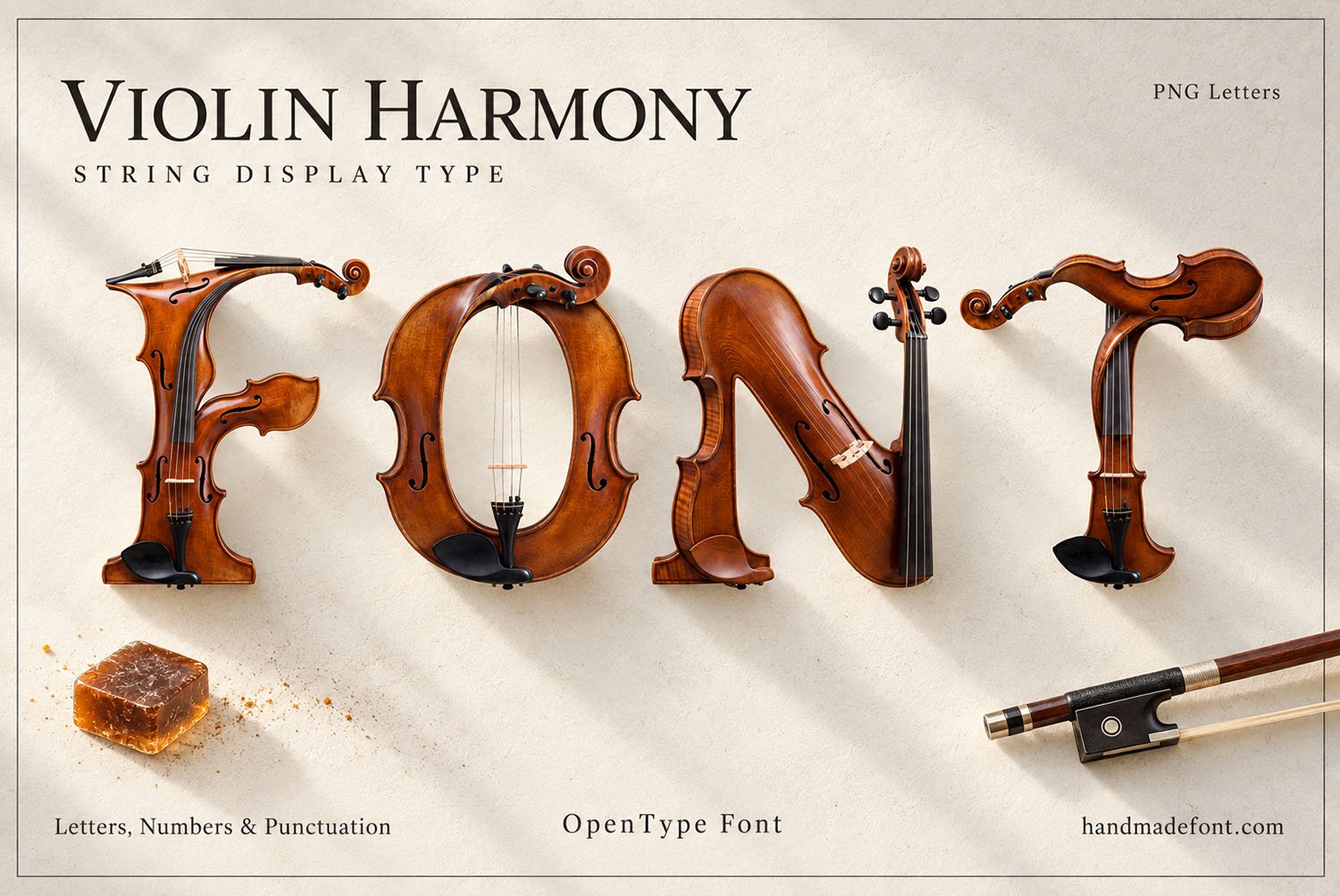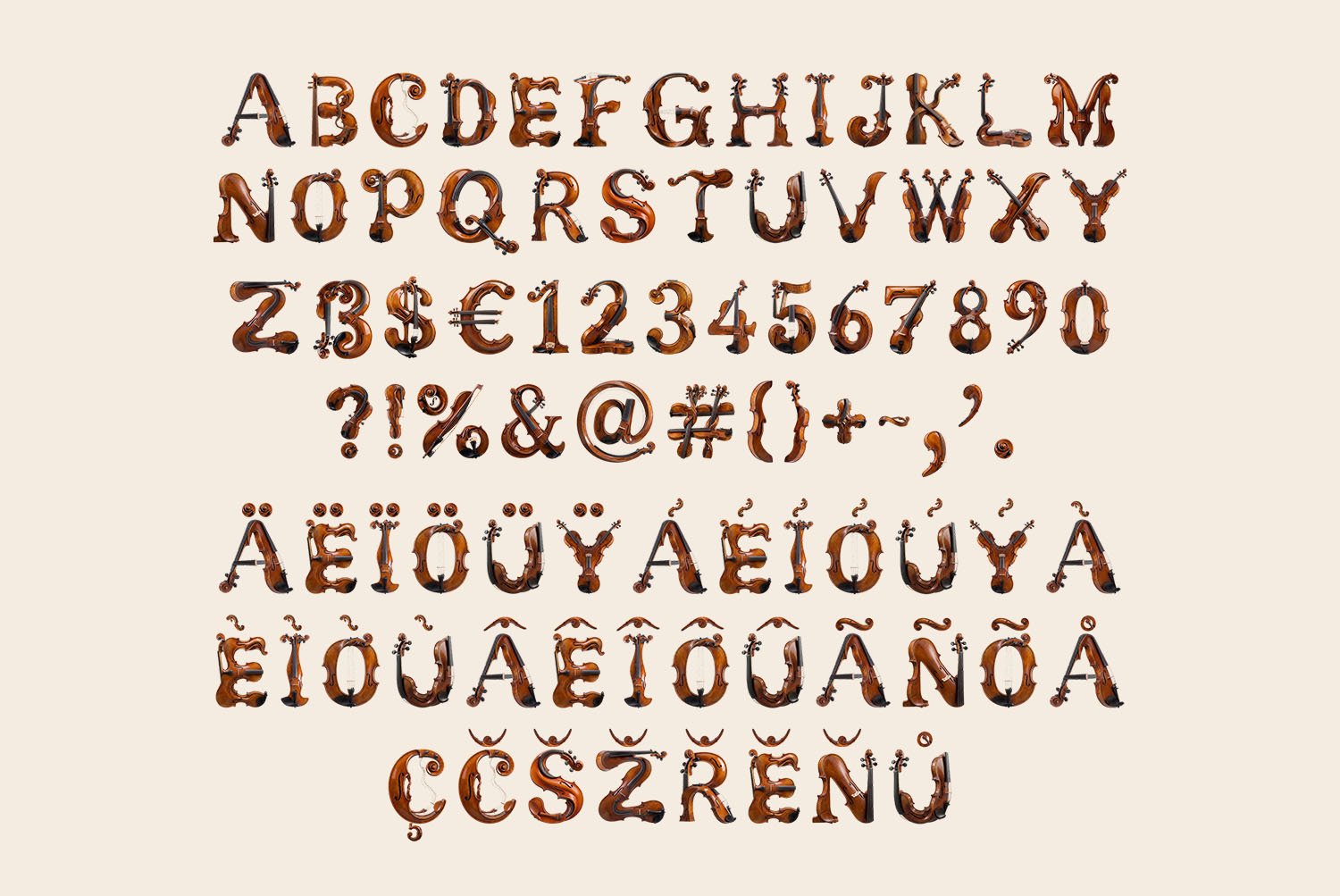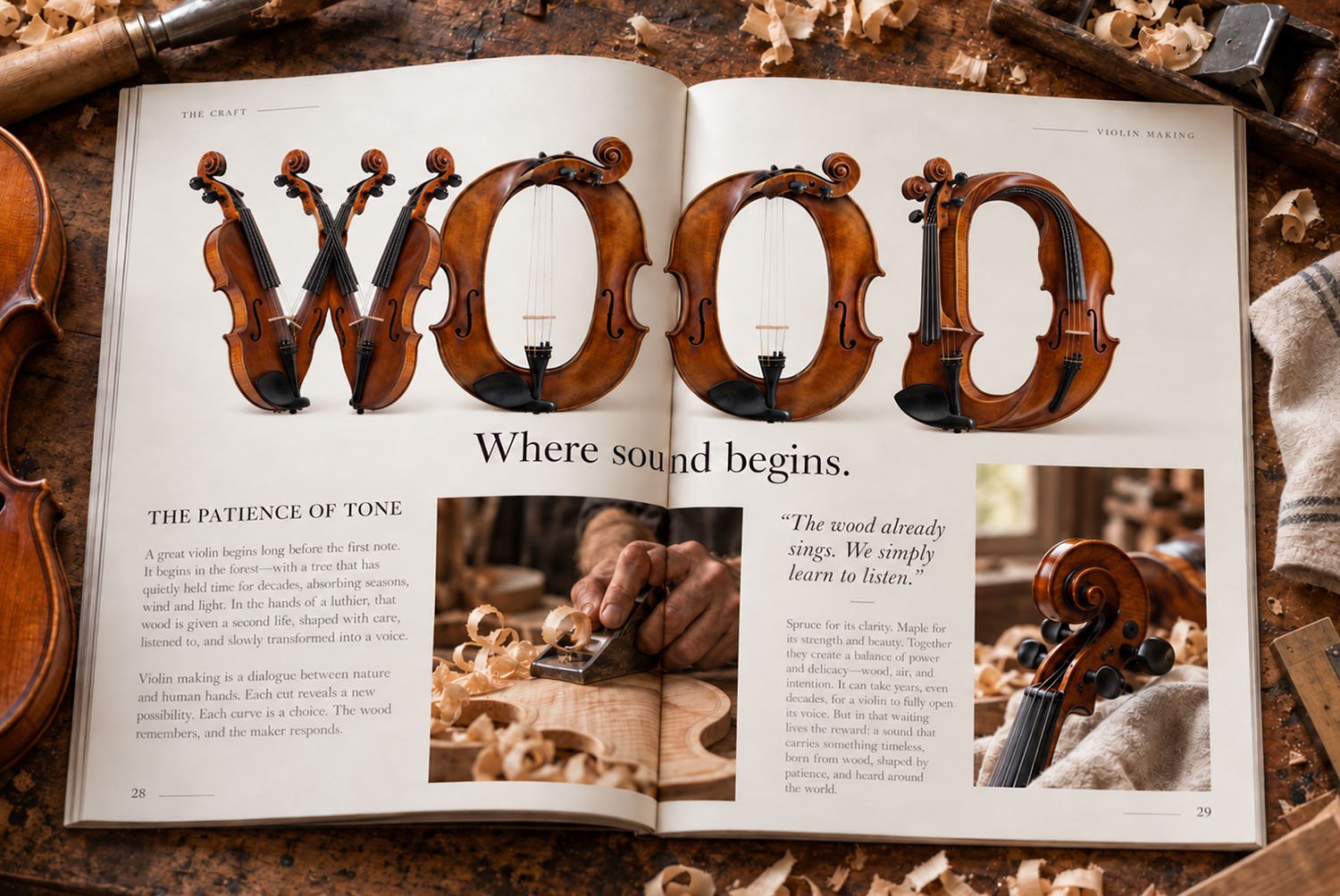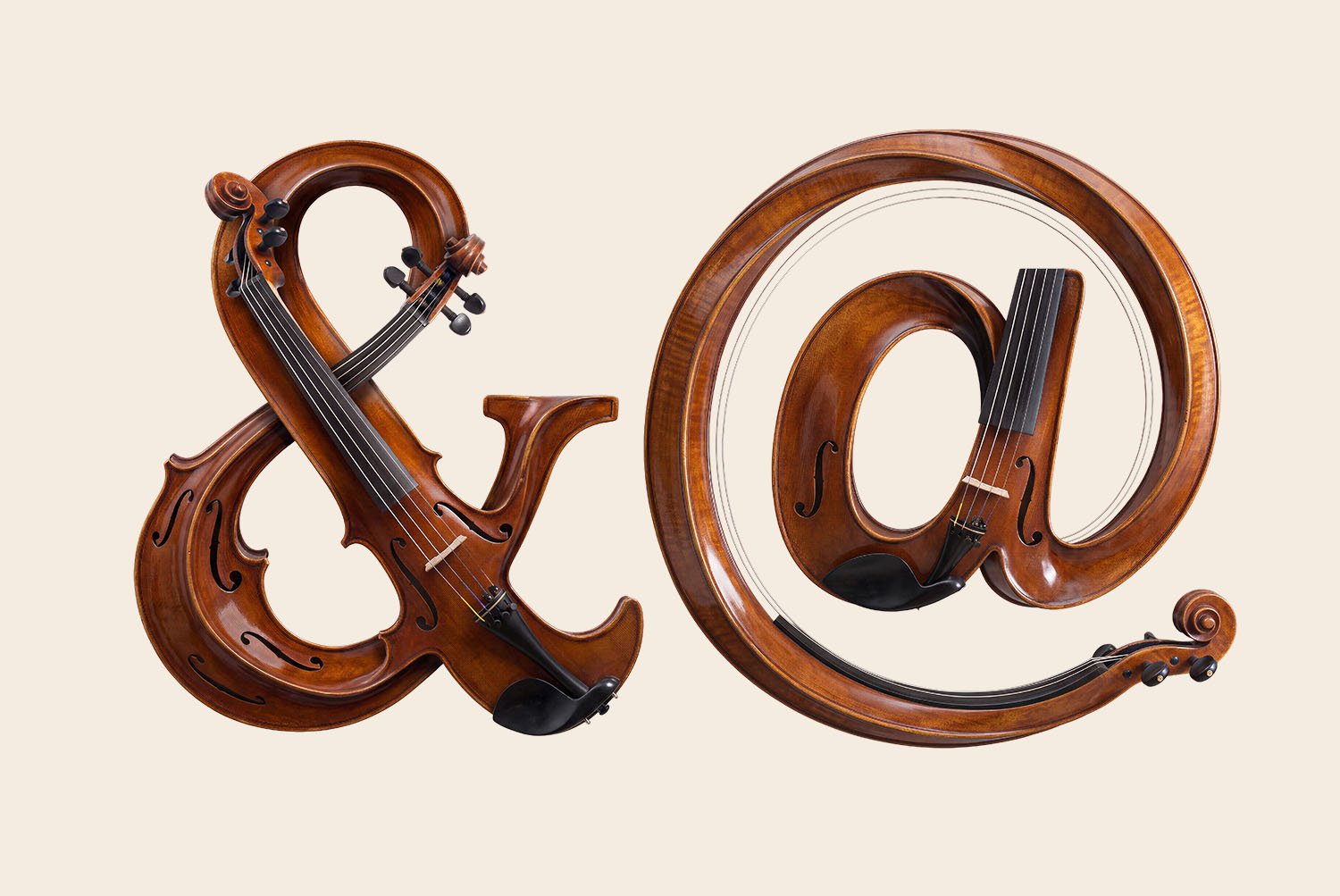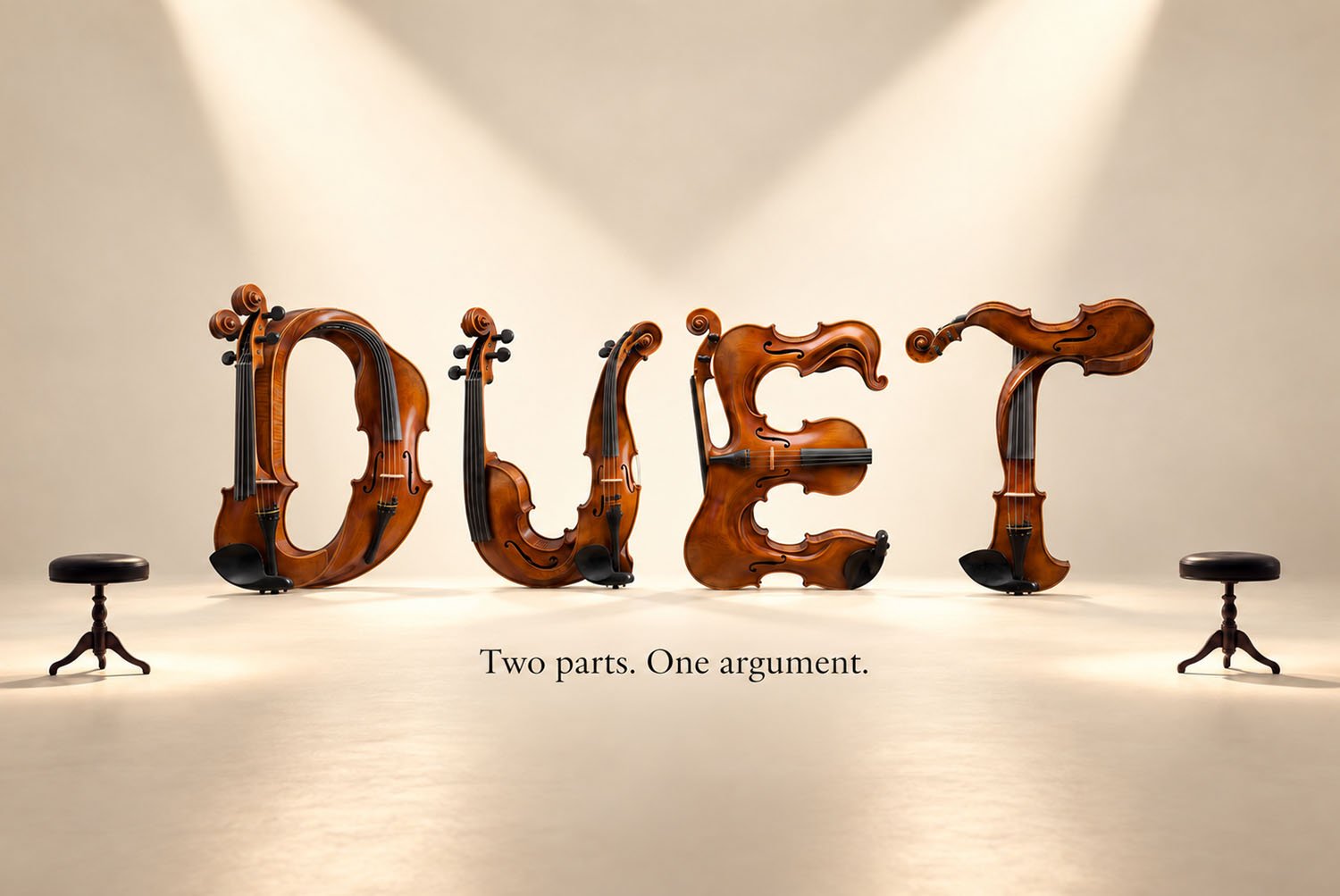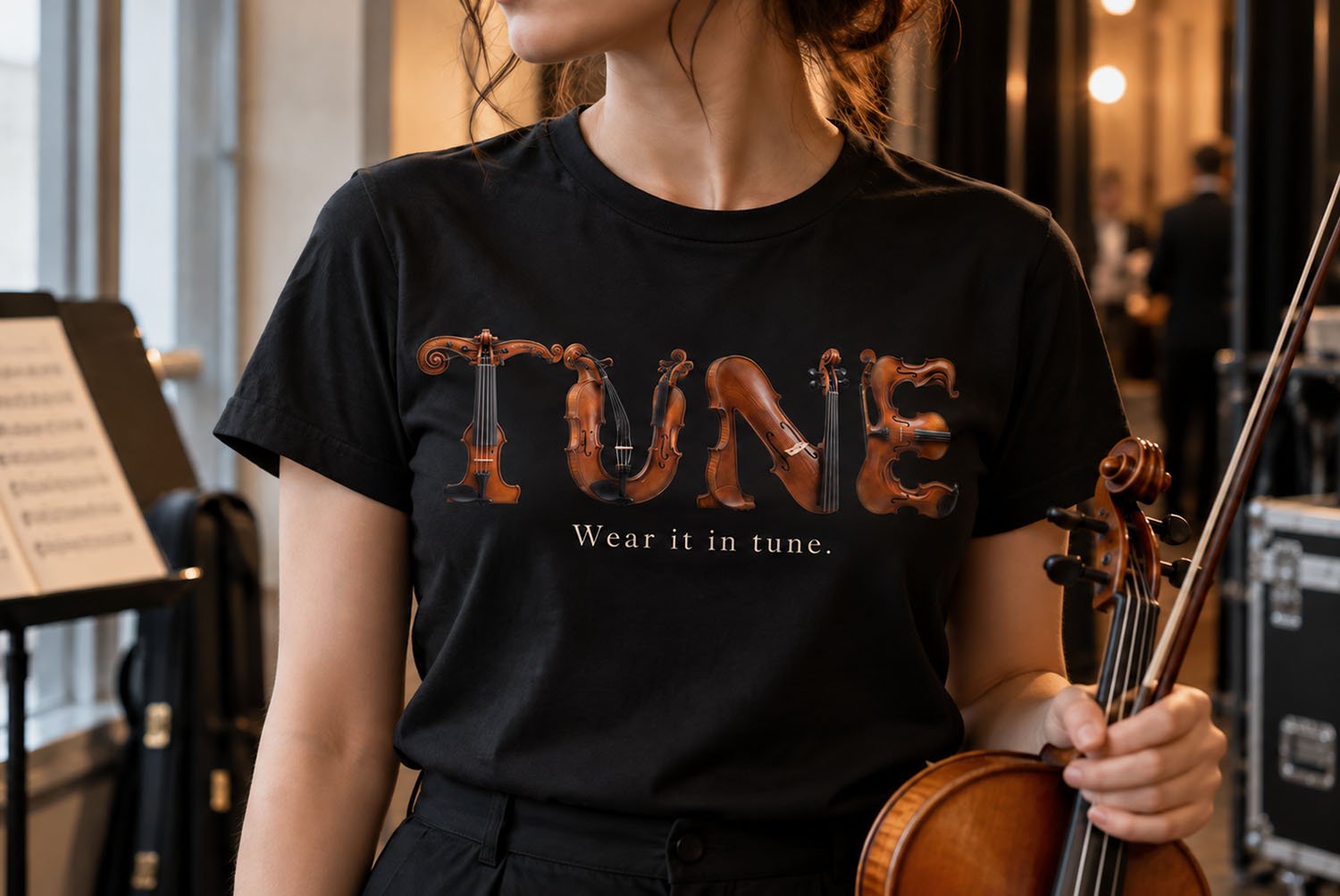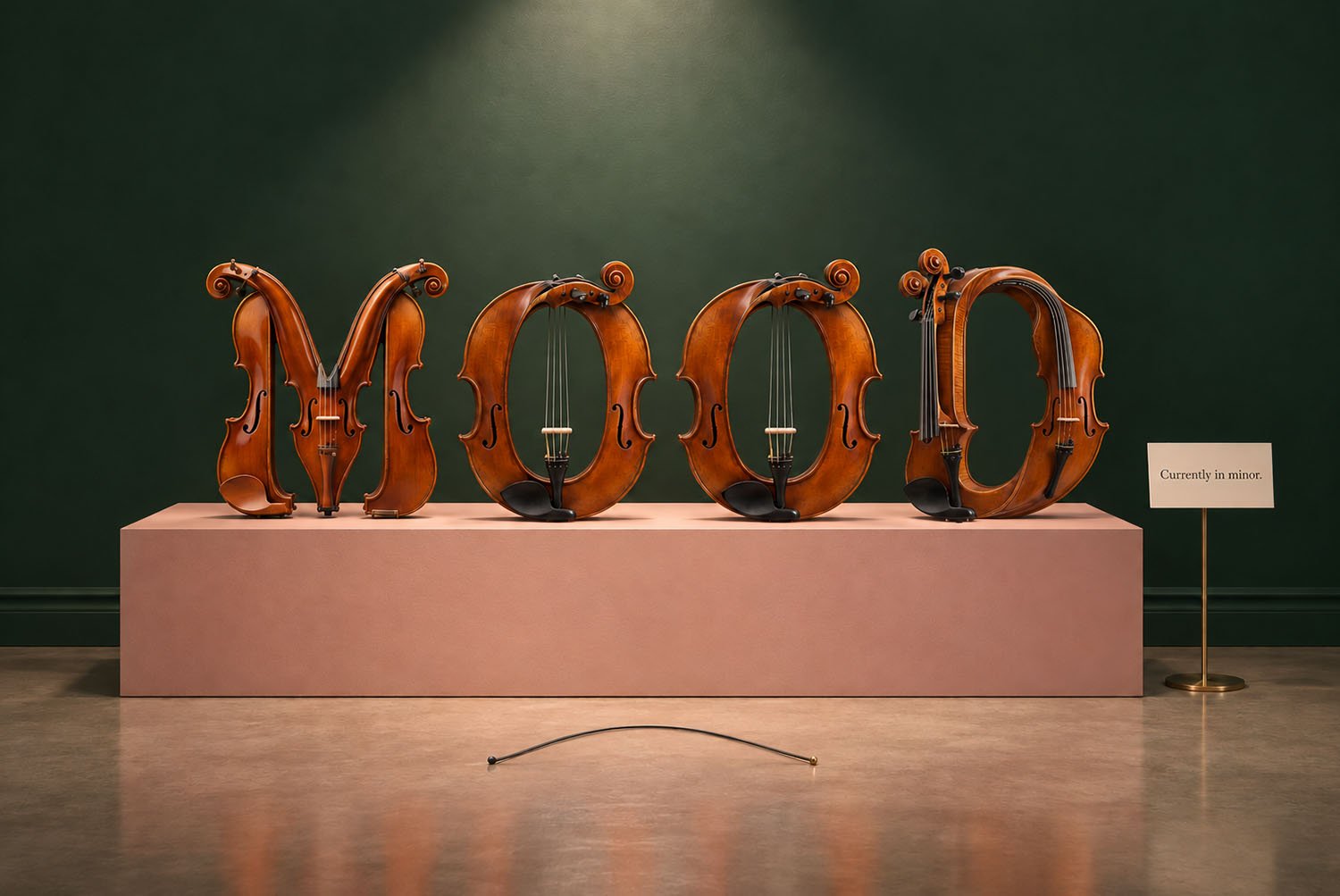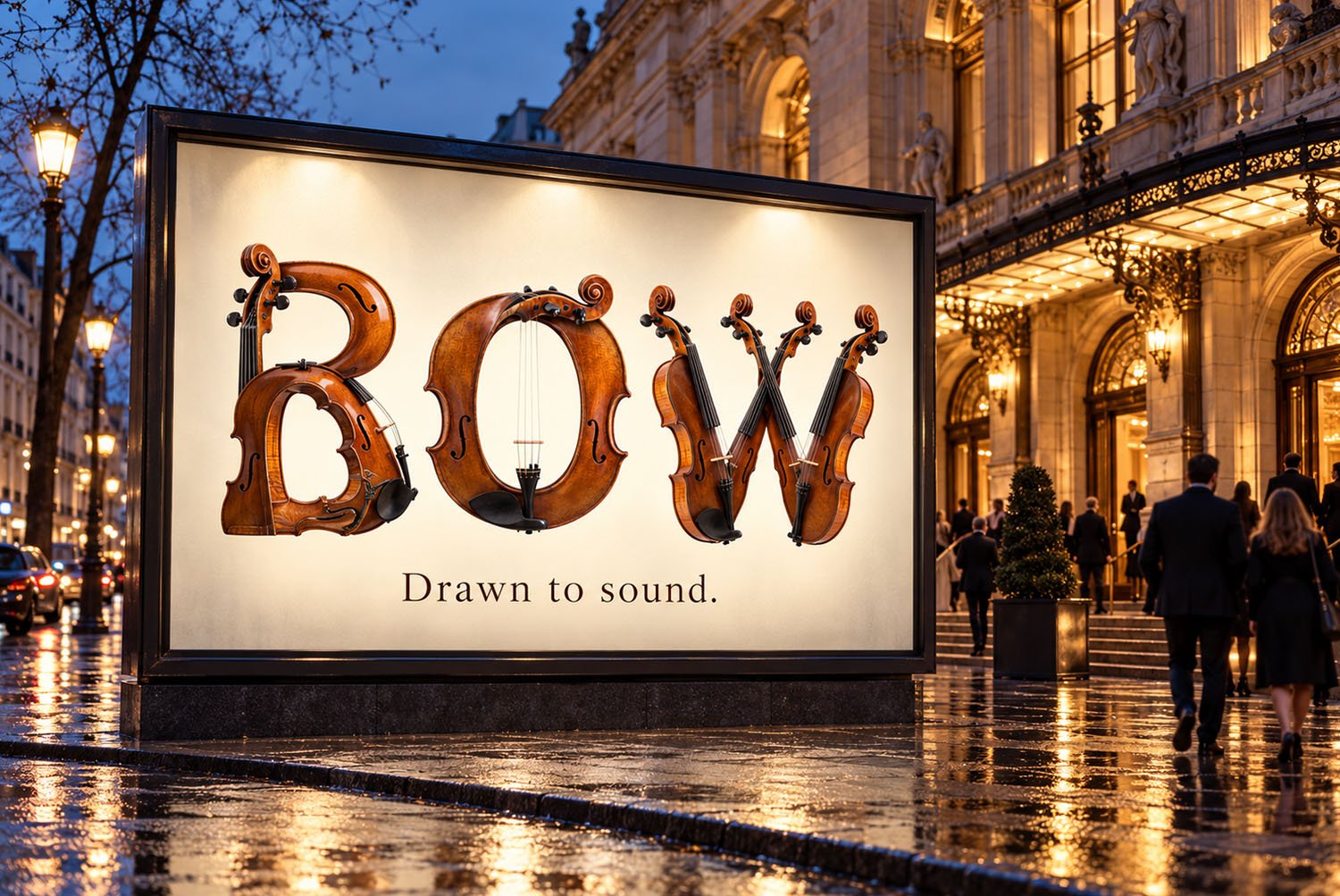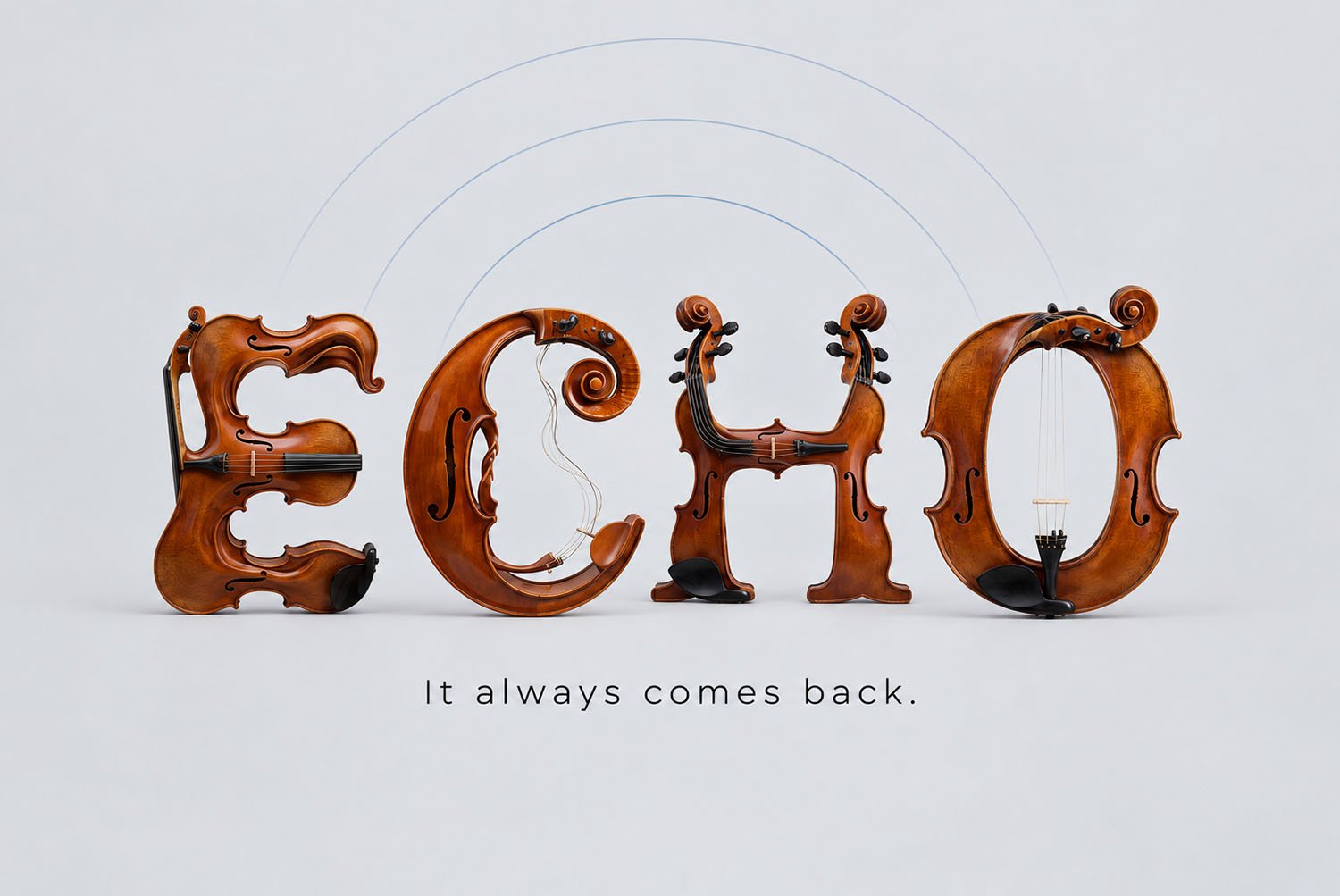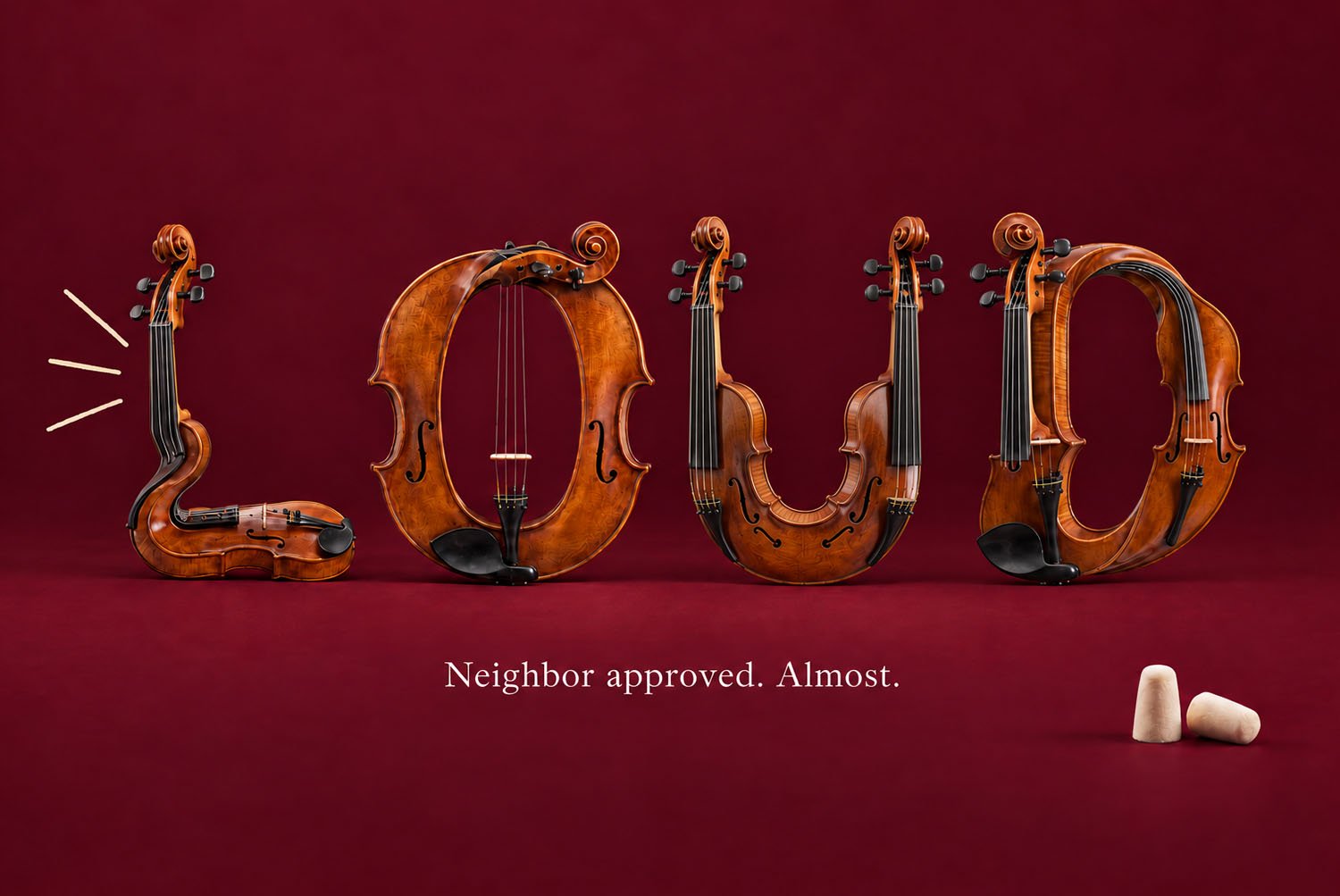
Violin Harmony Font
Violin Harmony Font captures the warmth and artistry of classical string instruments in a distinctive decorative typeface. Each character features elegant violin-inspired details, rich wooden textures, and flowing ornamental forms, creating a refined handmade look. It is ideal for concert posters, music school branding, album covers, invitations, cultural events, packaging, and editorial projects. The download includes an easy-to-use OTF font plus separate PNG letters with transparent backgrounds. Use them freely for custom compositions, social media graphics, collages, and memorable visual identities. Violin Harmony Font brings melody, character, and timeless elegance.
Letters : ABCDEFGHIJKLMNOPQRSTUVWXYZÀÁÂÃÄÅÇÈÉÊËÌÍÎÏÑÒÓÔÕÖØÙÚÛÜÝČĚŇŘŠŮŸŽẞ
Others : !#$%&'()+,-.?@`¨´¸˚˜–—‘’€−